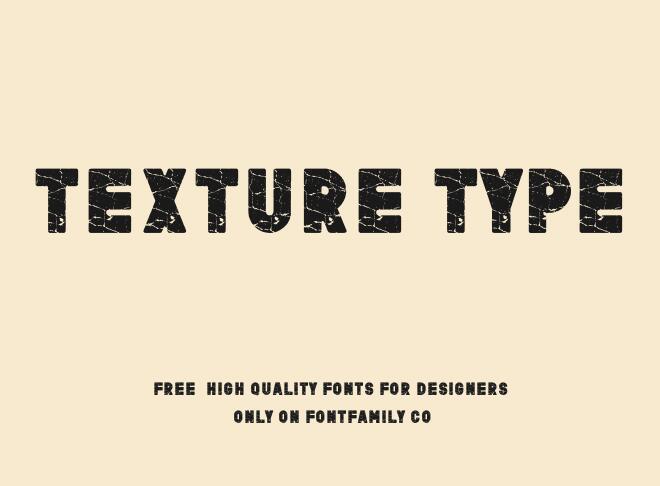
Texture Type Font
Texture Type Font is an innovative creation by Creative Font Foundry. It offers a rustic and vintage appeal that perfectly blends modern design with old-world charm. The font's decorative elements, which mimic textured surfaces, add depth and character to any design. It stands out in display use, making it a top choice for headers, posters, and signage. This font is reminiscent of vintage typography, yet its unique textured feature sets it apart, providing a distinctive aesthetic that designers will love. Texture Type Font is versatile, with its stylistic alternates and ligatures, it can adapt to a variety of design contexts. Its high legibility even in complex designs makes it an excellent tool for designers aiming for a blend of functionality and style. This font is a great choice for those in search of something different, yet still maintaining a familiar and comfortable feel.